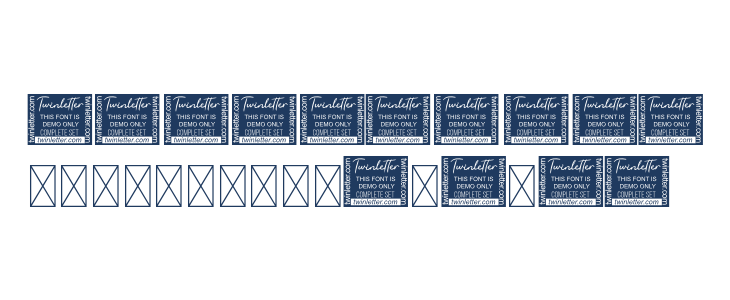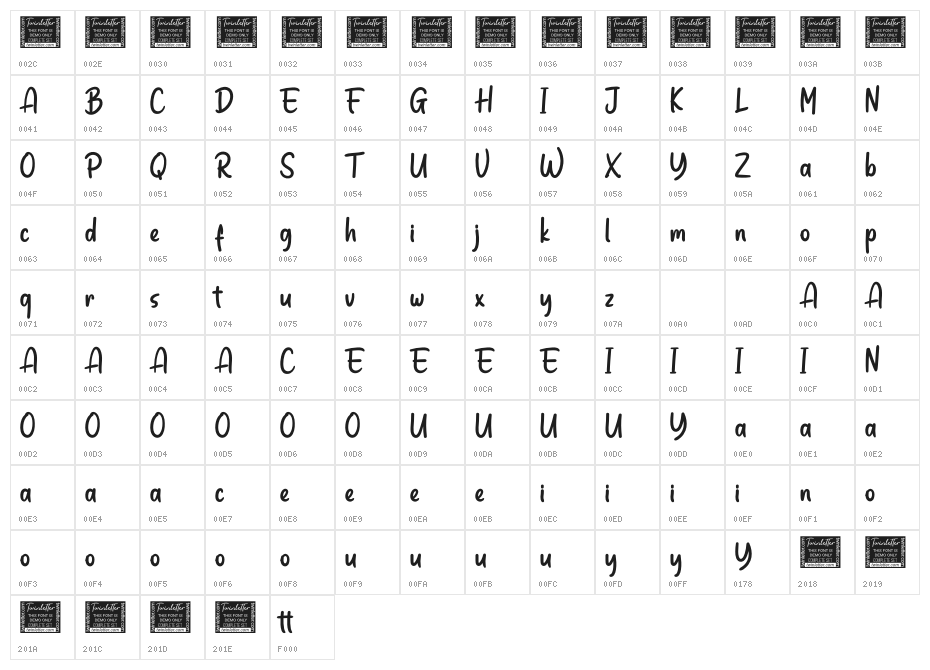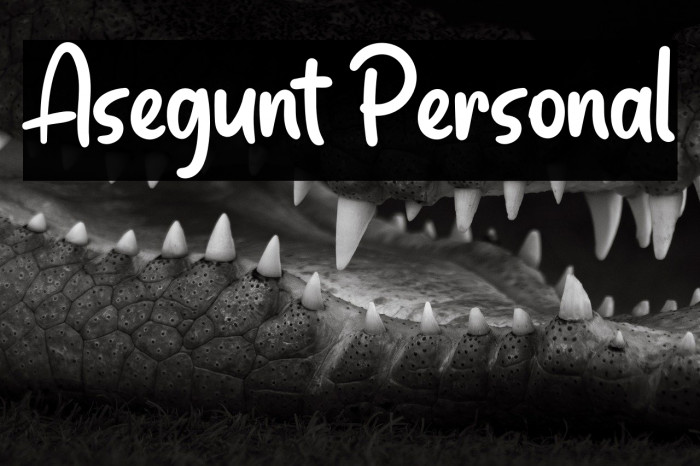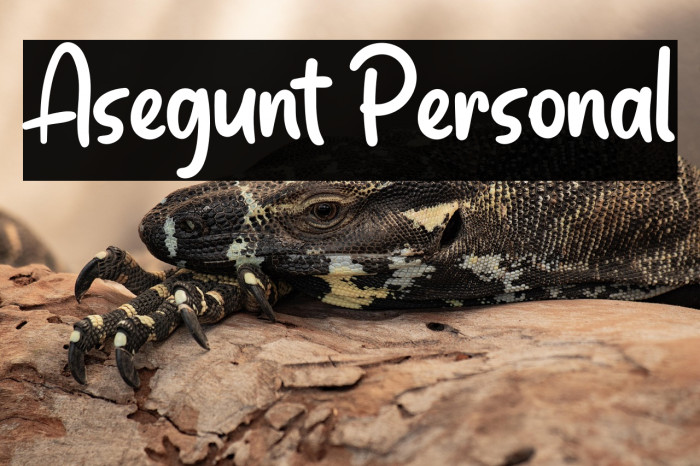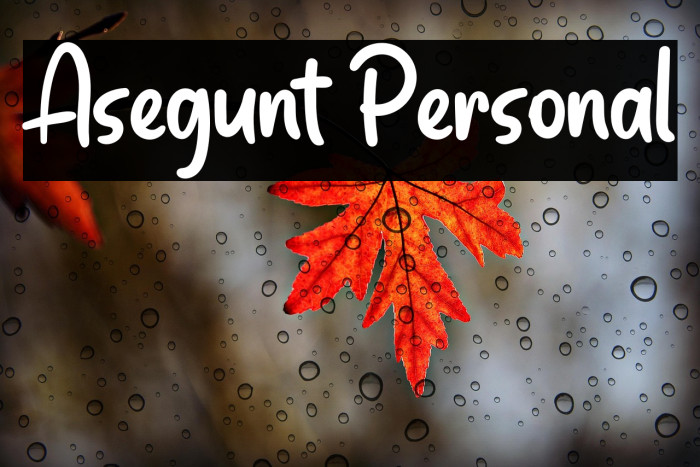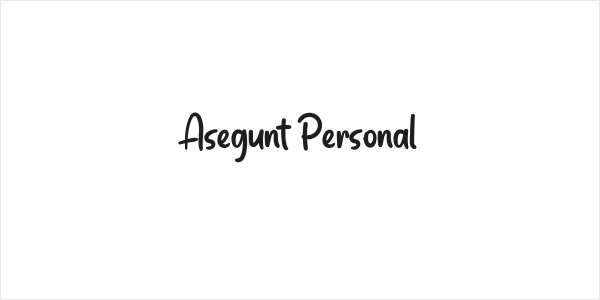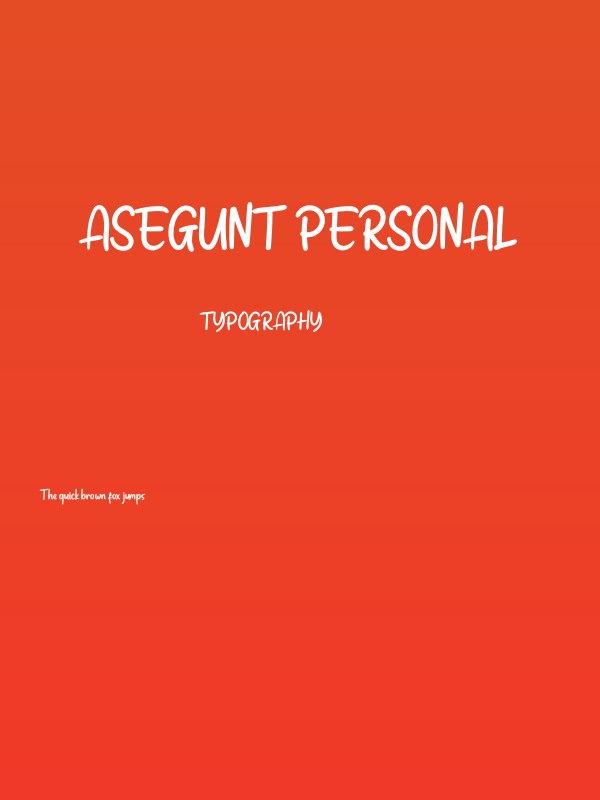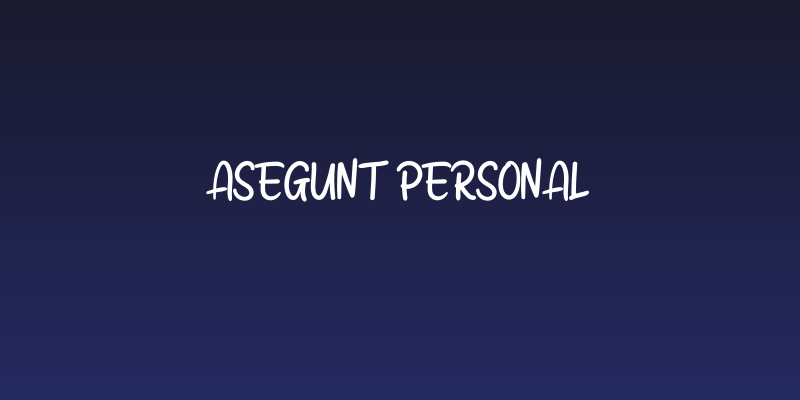
Asegunt Personal Font
Asegunt Personal Description
This font features a playful and casual handwritten style, characterized by smooth curves and a friendly appearance. The uppercase letters are bold and slightly condensed, giving them a strong presence, while the lowercase letters maintain a consistent flow with rounded edges. The font includes a full set of uppercase and lowercase letters, numerals, and a selection of special characters. Its informal and approachable design makes it suitable for a variety of creative projects, adding a personal touch to any text.